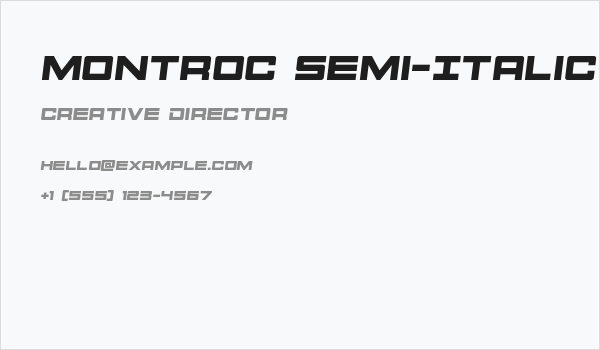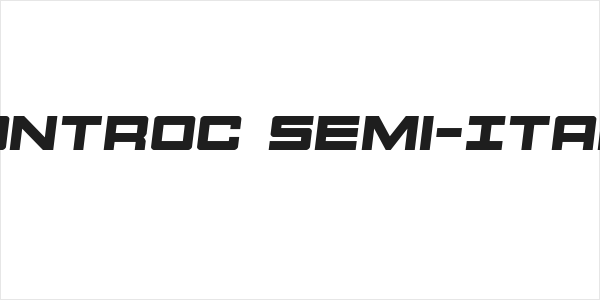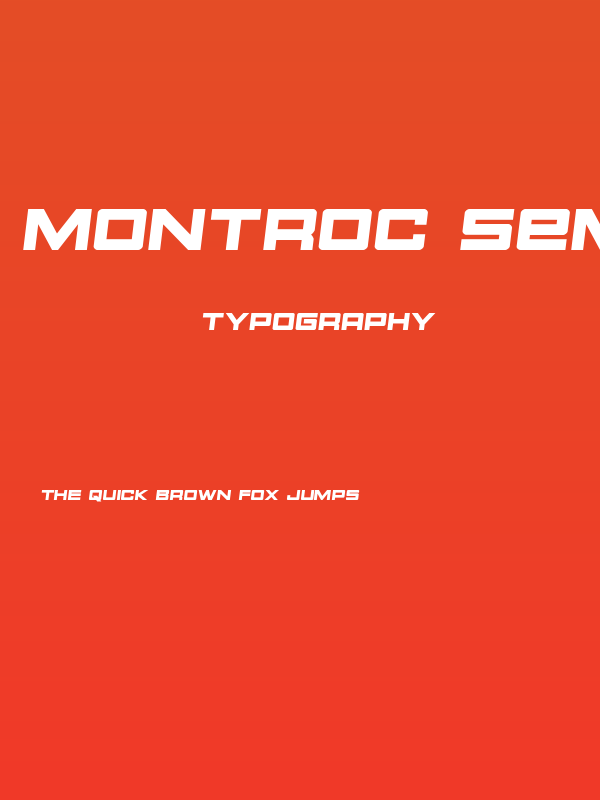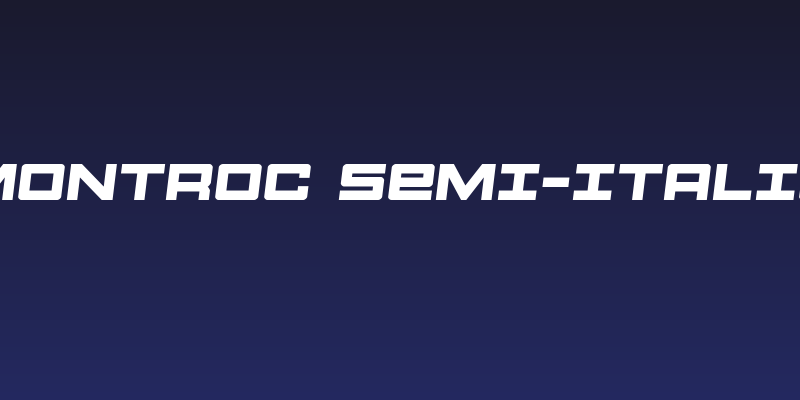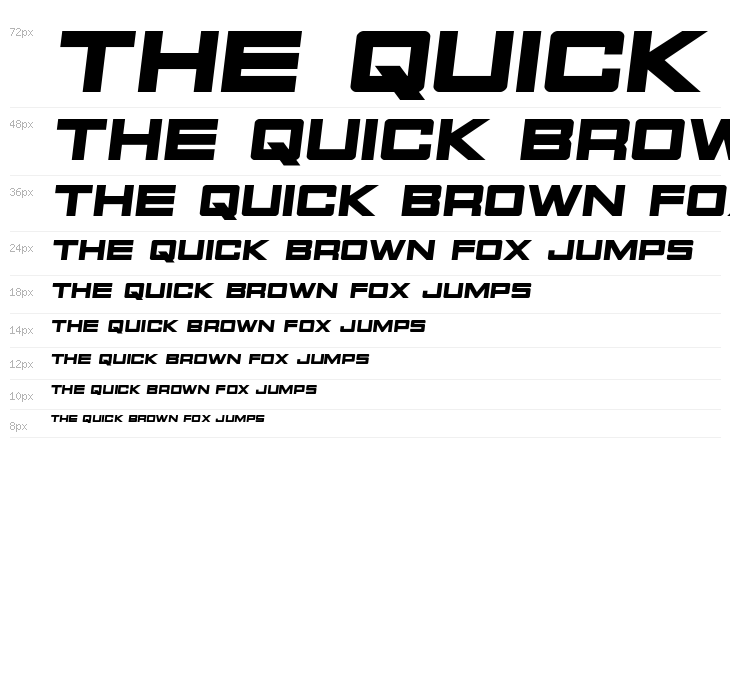
Montroc Semi-Italic Font
Montroc Semi-Italic Description
This font features a bold and dynamic design with a modern aesthetic. The characters are slightly italicized, giving them a forward-leaning appearance that suggests movement and speed. The strokes are thick and consistent, providing a strong visual impact. The geometric shapes of the letters are clean and precise, with sharp angles and straight lines. This font is highly legible and stands out well in various applications. The numbers and special characters maintain the same bold style, ensuring consistency across all text elements.
Proposed ProjectsIdeal for sports branding, automotive advertisements, tech company logos, and dynamic poster designs.